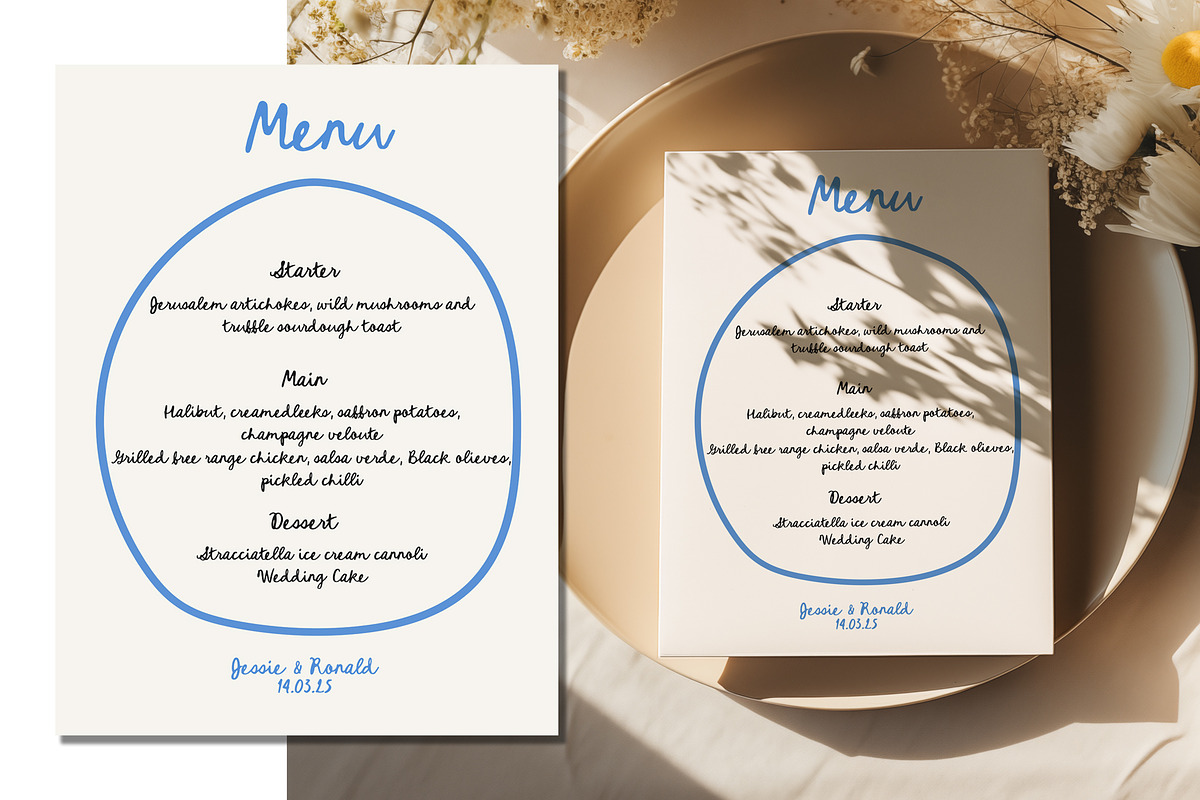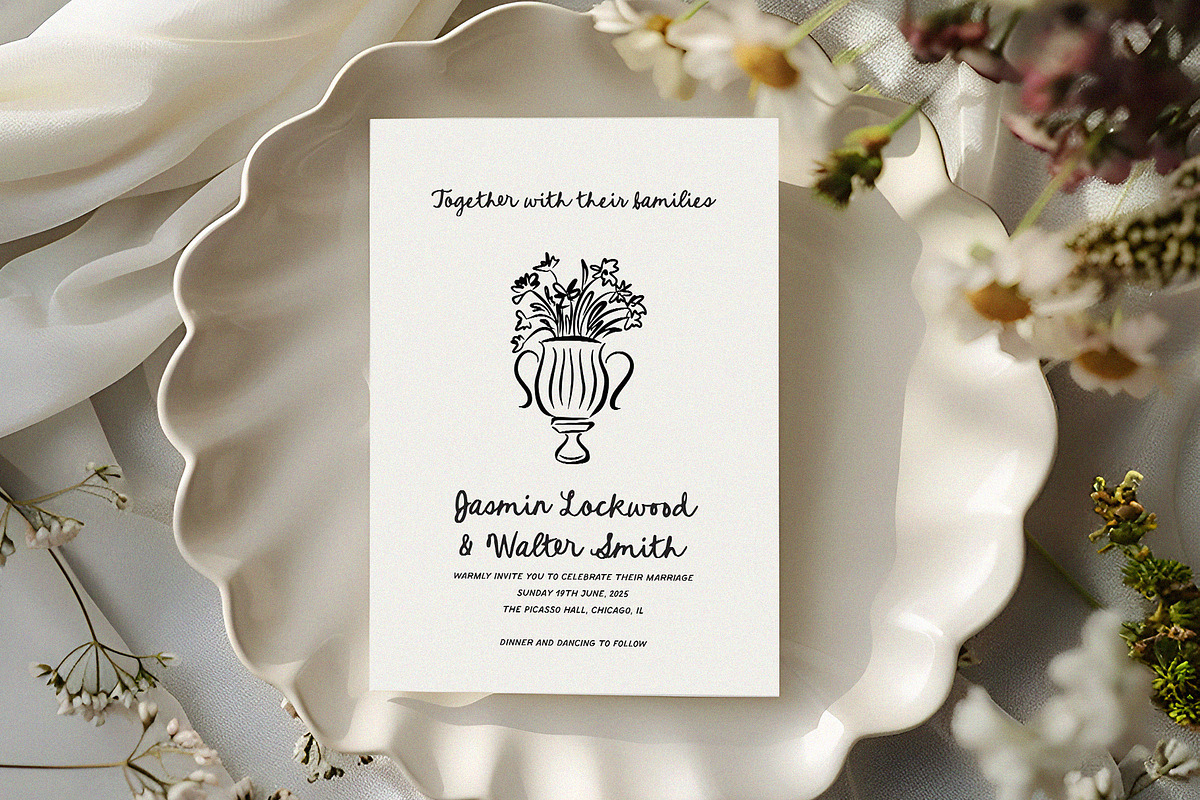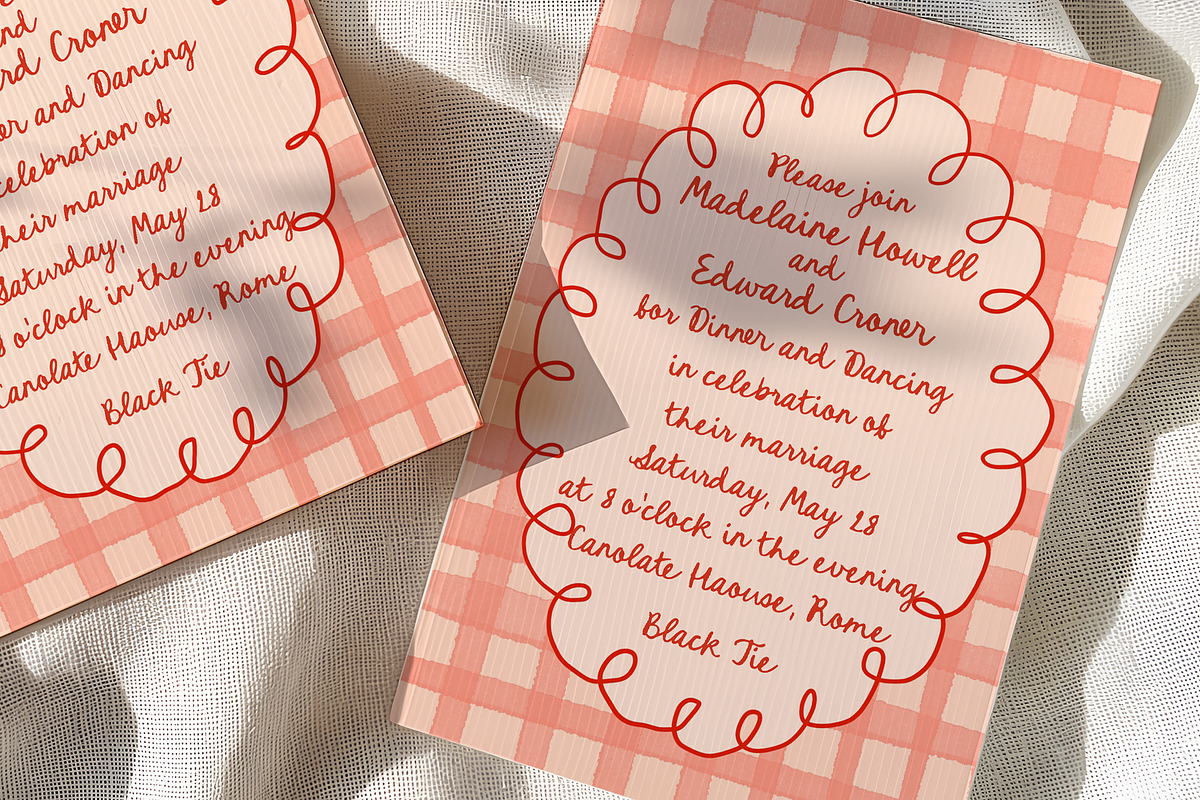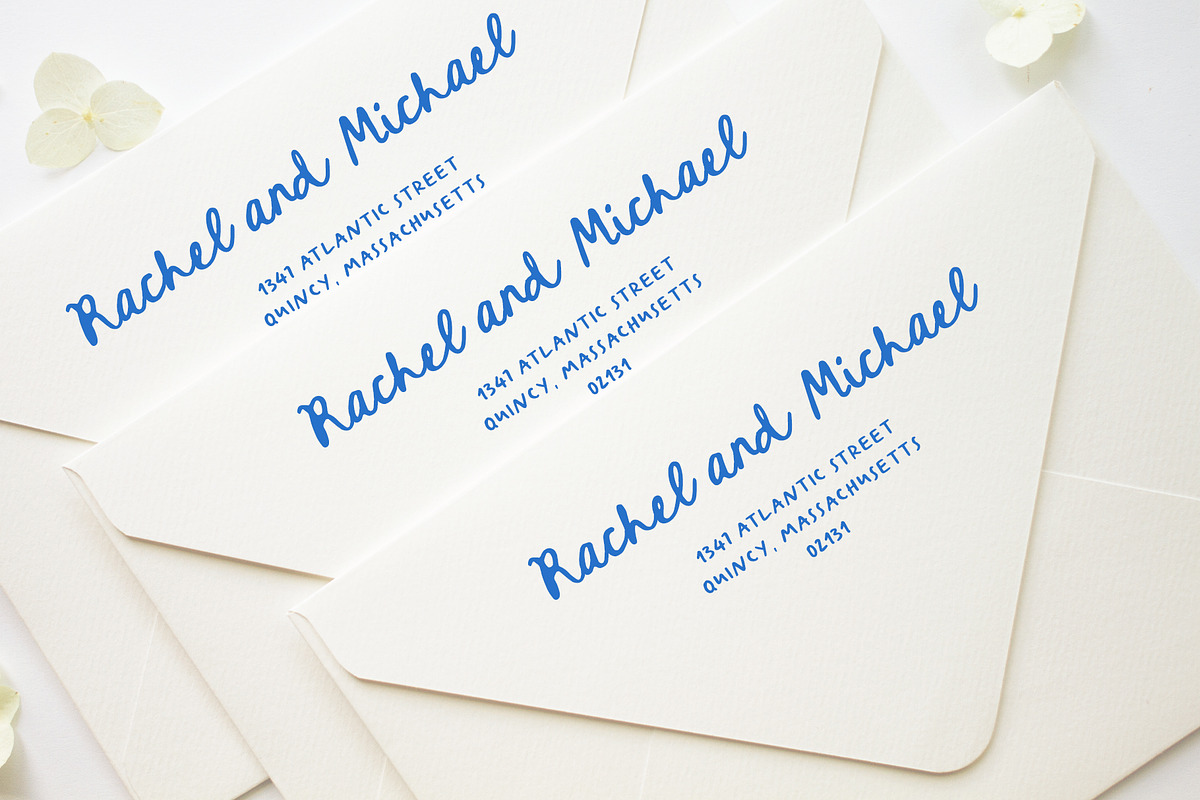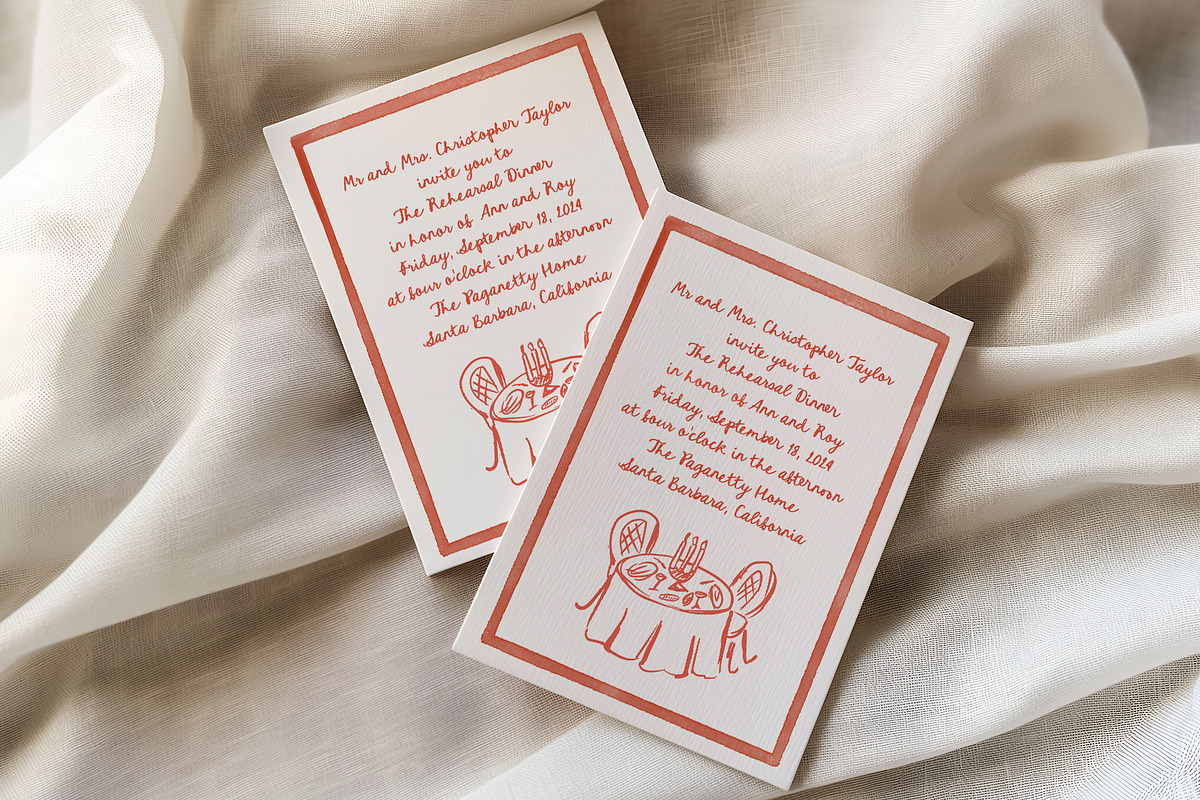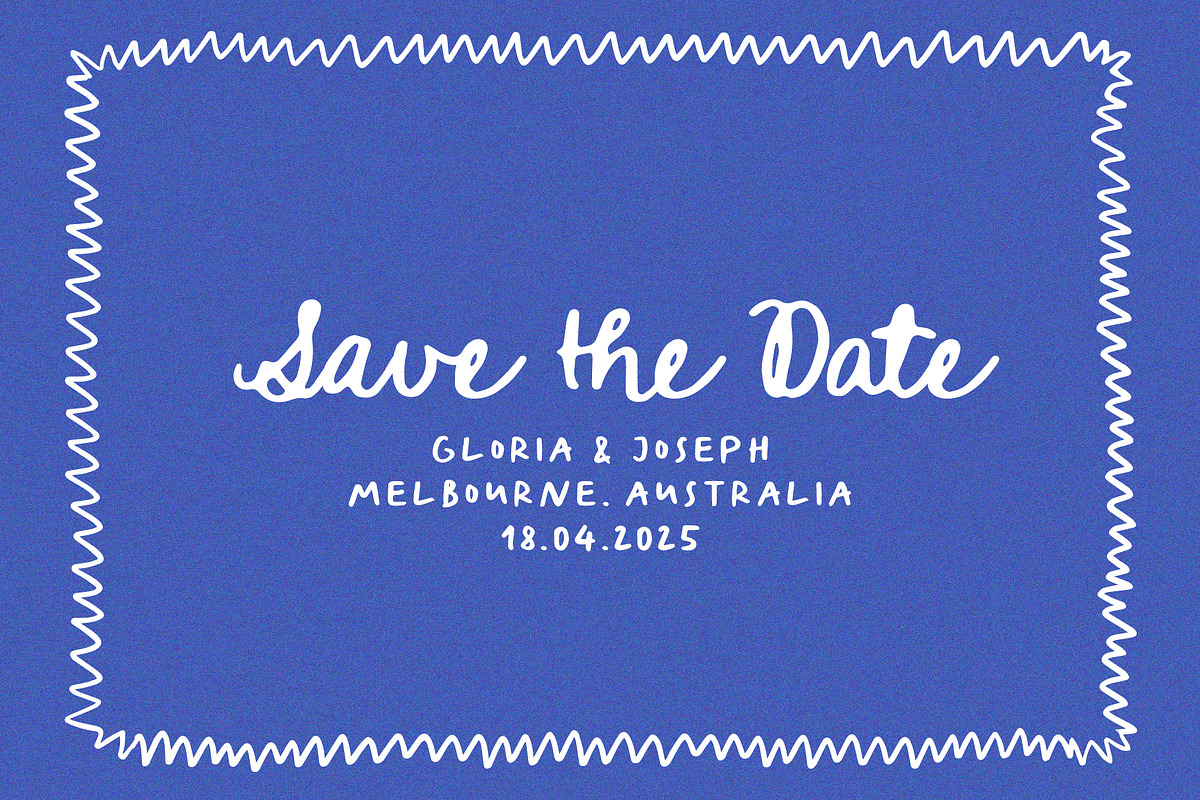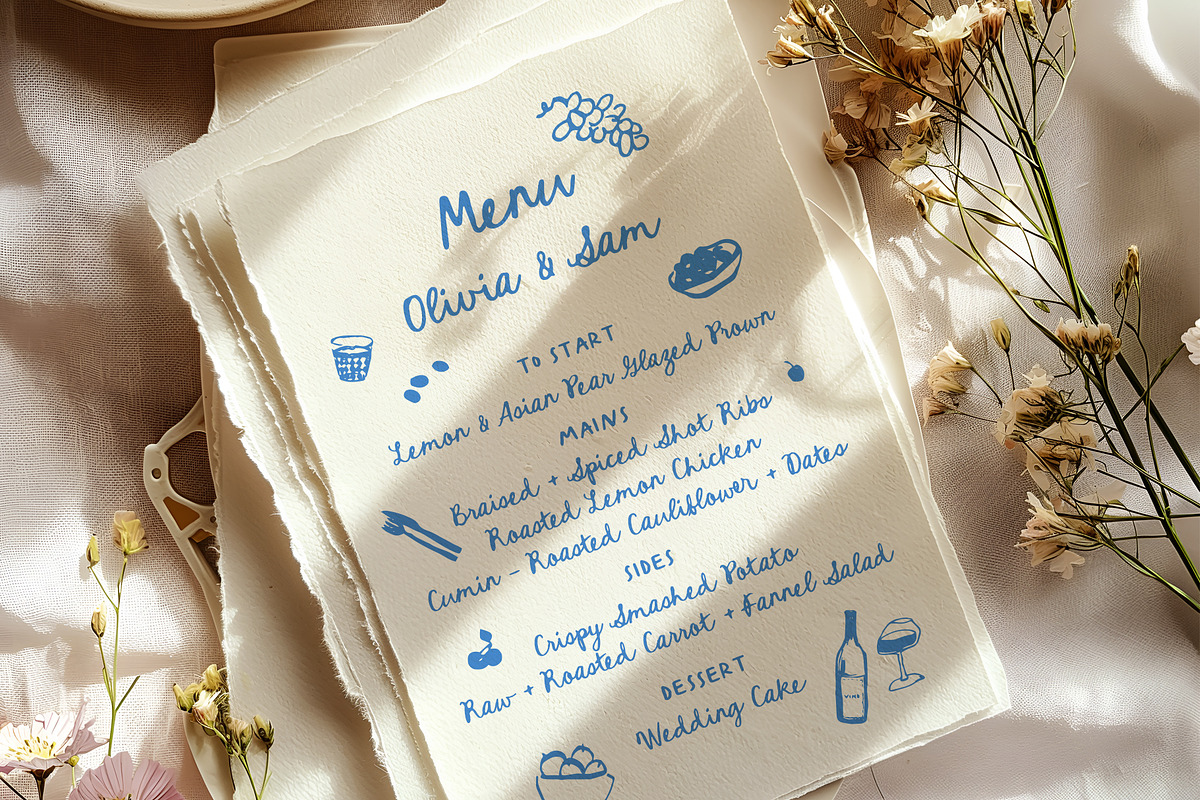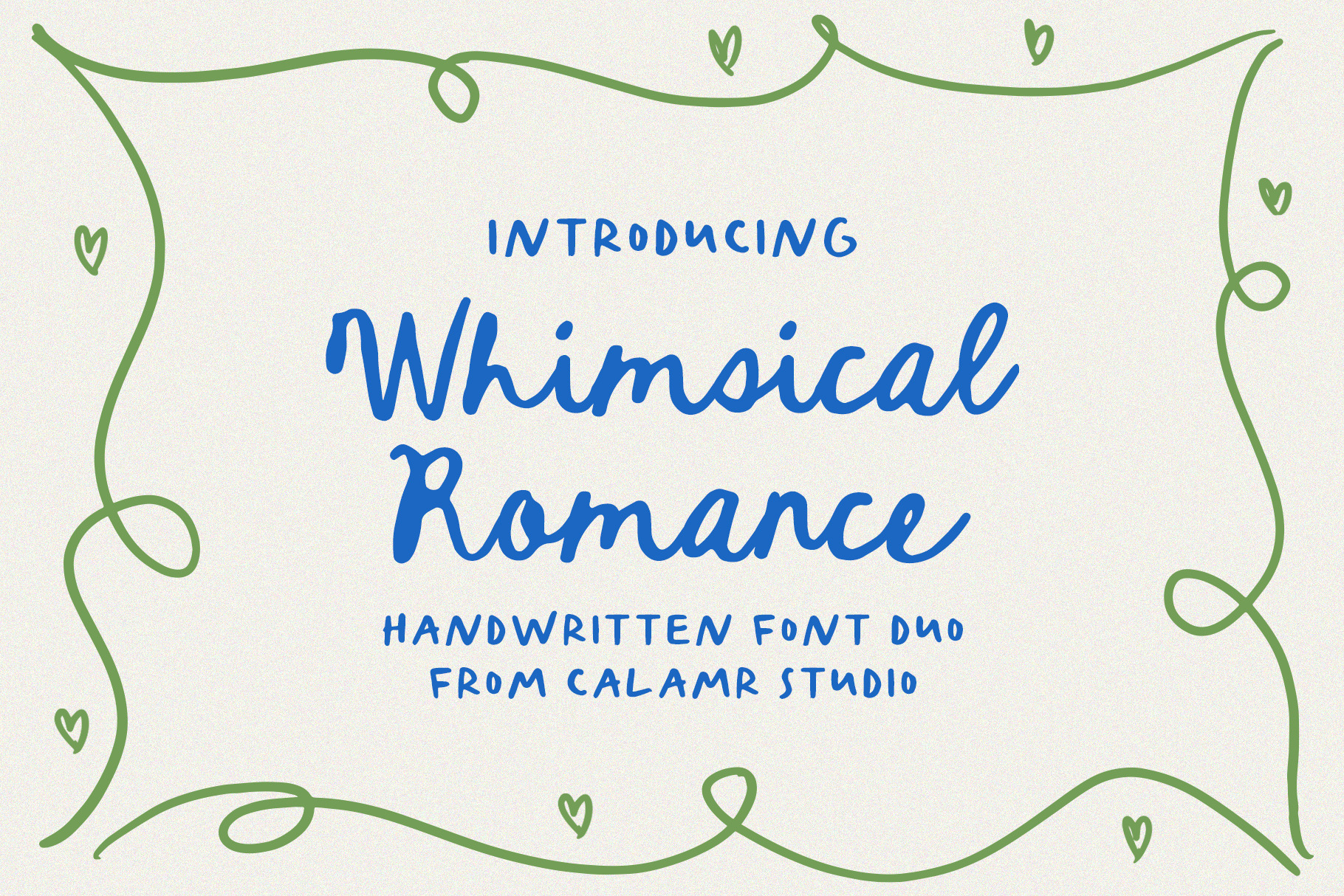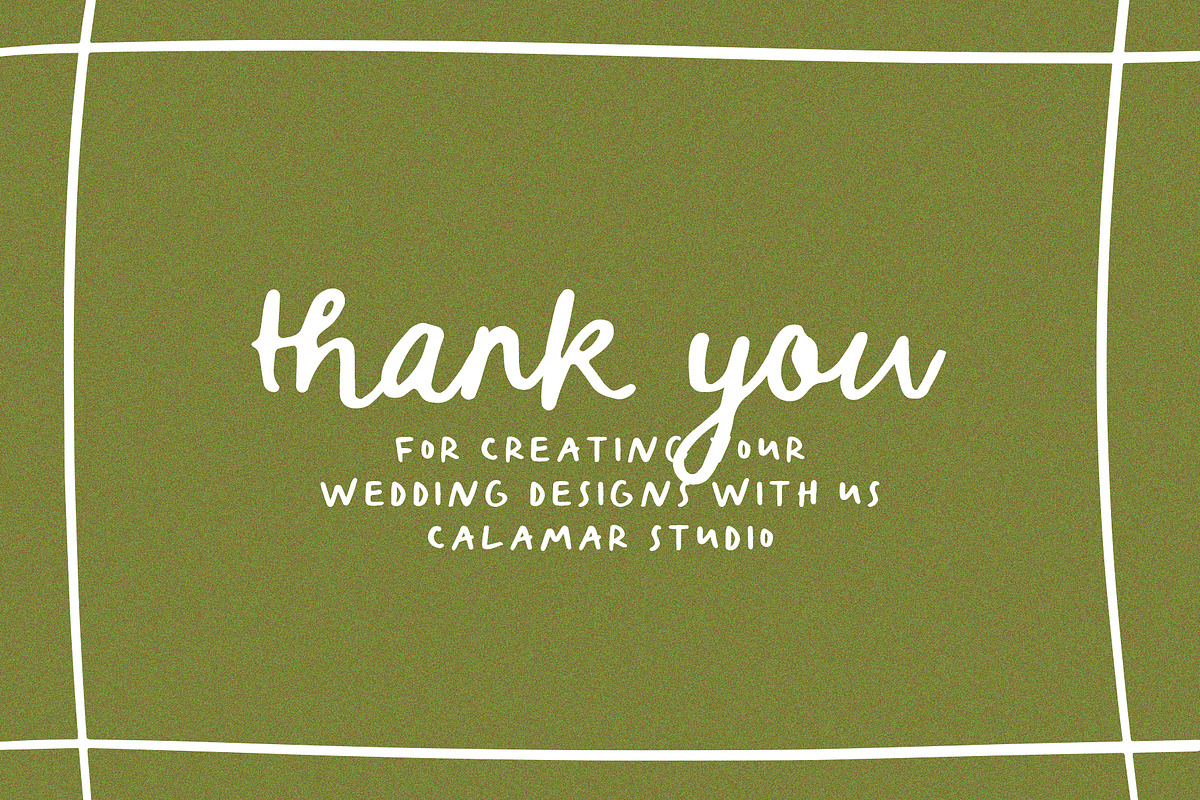
Whimsical Romance Handwritten Font
Introduce you my new handwritten font duo that combines two trendy whimsical fonts look like natural handwriting.
It will look great for handwritten wedding invitations, menu, modern wall arts, instagram posts, quotes, branding. Whimsical Romance includes full set of Uppercase and Lowercase Basic Characters, Numbers, Punctuation, some alternatives and ligatures.